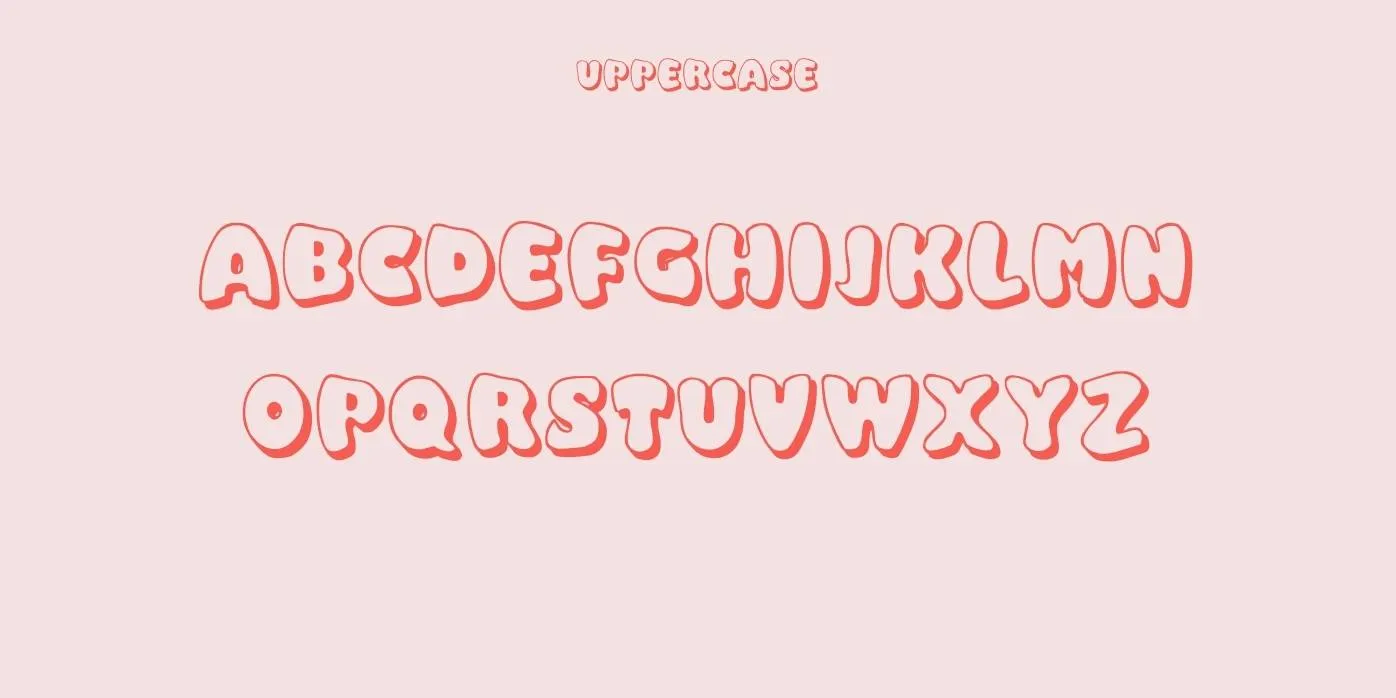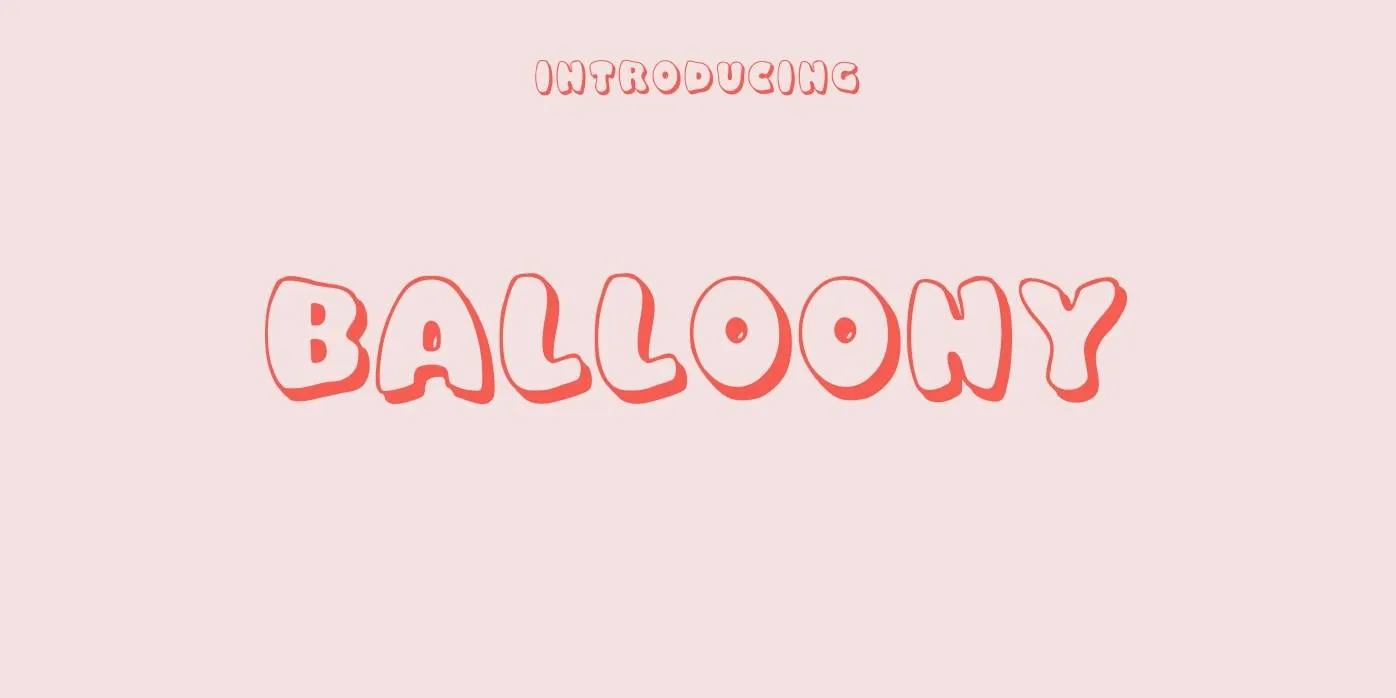
Balloony Font
Digital Typeface Studio created this typeface. Balloony font is a cartoon-type texture. The family of this typeface contains two styles. These two styles are regular and italic.
The family of this font is short because it contains only two styles. The looney tunes font is usually paired with this font. Both fonts give an attractive and readable look to the text, which grabs readers’ attention. This pair gives a more pretty look to the text than a single font.